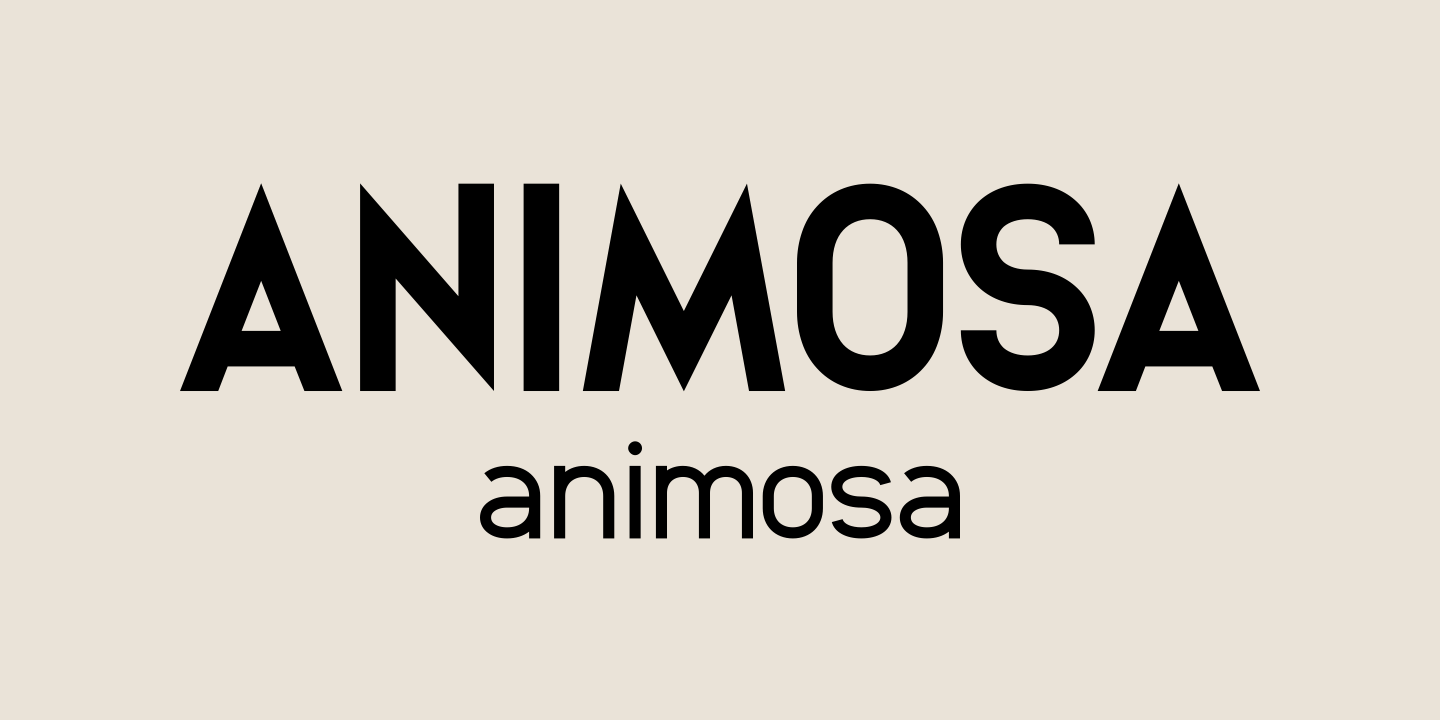
Animosa Font is perfect for dynamic entertainment branding, energetic sports marketing, vibrant festival promotions, animated content displays, lively youth campaigns, spirited event communications, enthusiastic lifestyle brands, and expressive creative projects. This spirited typeface excels in applications requiring animated energy and vivacious character that captures the essence of enthusiasm and dynamic expression through vibrant visual personality and animated appeal.
What makes Animosa Font exciting is its infectious energy that perfectly captures the spirit of animation and dynamic enthusiasm through vibrantly crafted letterforms bursting with life. The font features energetic character construction with animated curves and spirited proportions that instantly conveys themes of vitality, enthusiasm, and dynamic expression perfect for brands celebrating animated experiences and energetic lifestyle cultures in entertainment markets.
The Animosa Font family includes energetic weights and animated variations with spirited styling elements, offering designers comprehensive tools for creating dynamic animated compositions. The family provides consistent vibrant aesthetic with varying energy levels for versatile entertainment communications and animated branding projects requiring genuine spirited character and dynamic animated appeal.
The energetically crafted letterforms of Animosa Font ensure excellent readability while maximizing animated charm and spirited enthusiasm, making it ideal for entertainment marketing, animated content displays, and dynamic brand communications. This vibrant typeface combines animated heritage with contemporary technical standards for outstanding performance in modern design environments requiring authentic spirited character and dynamic animated presence.